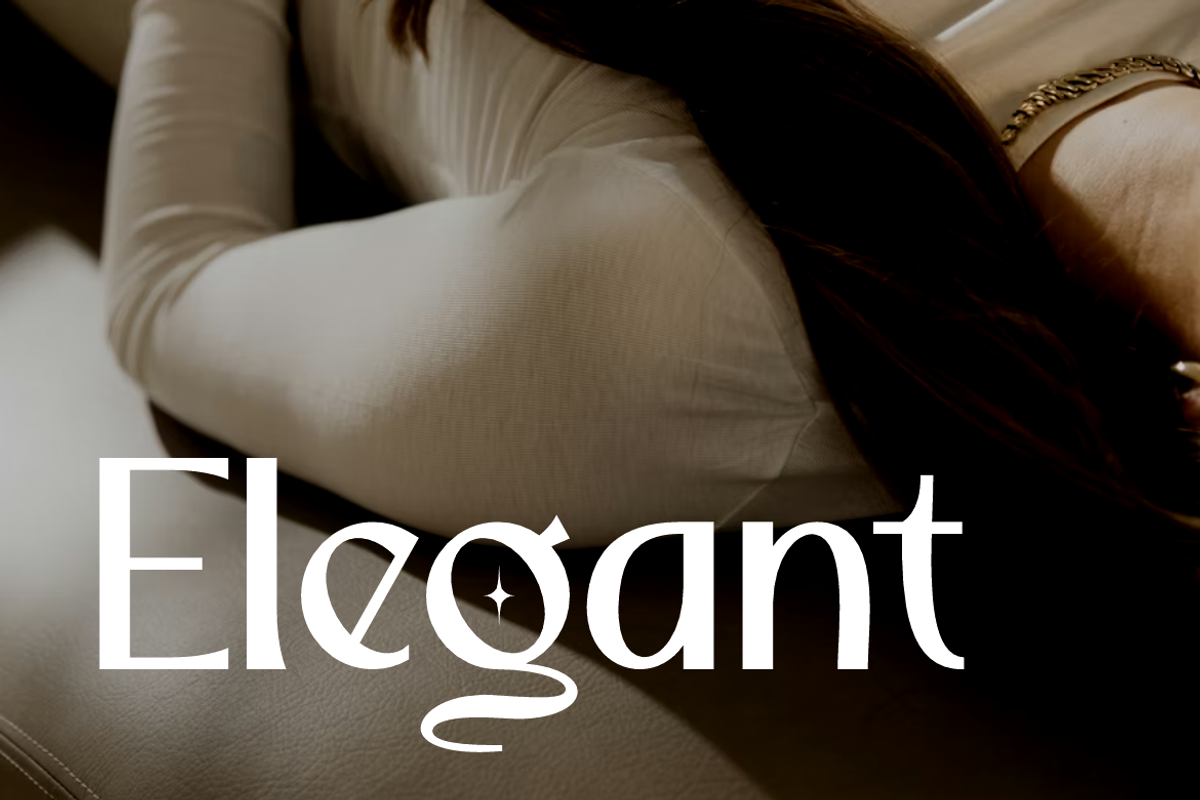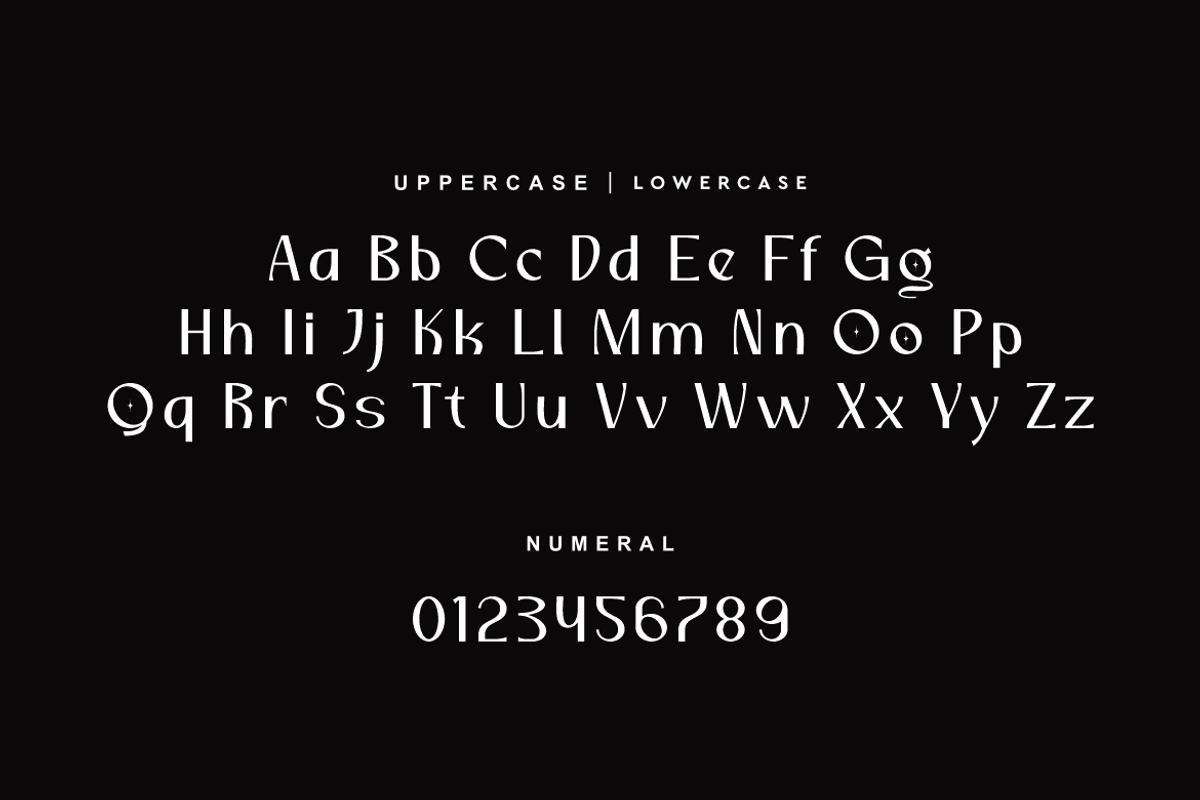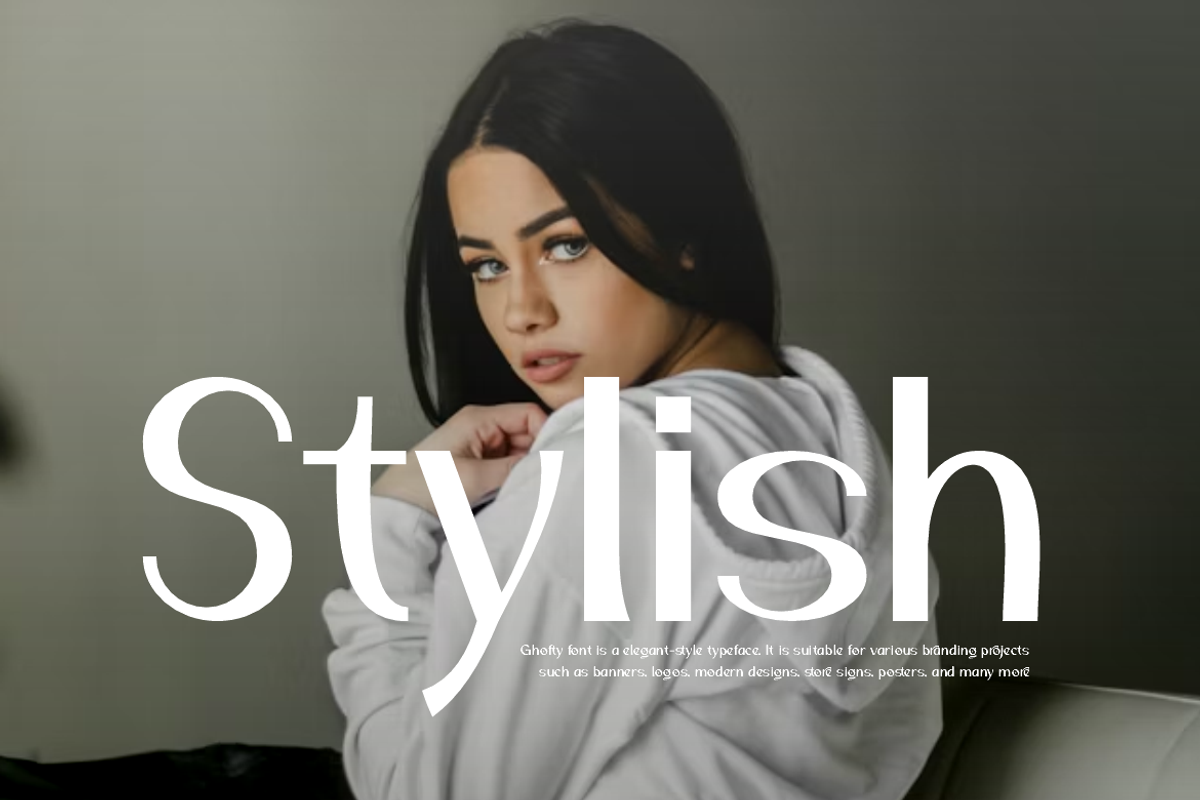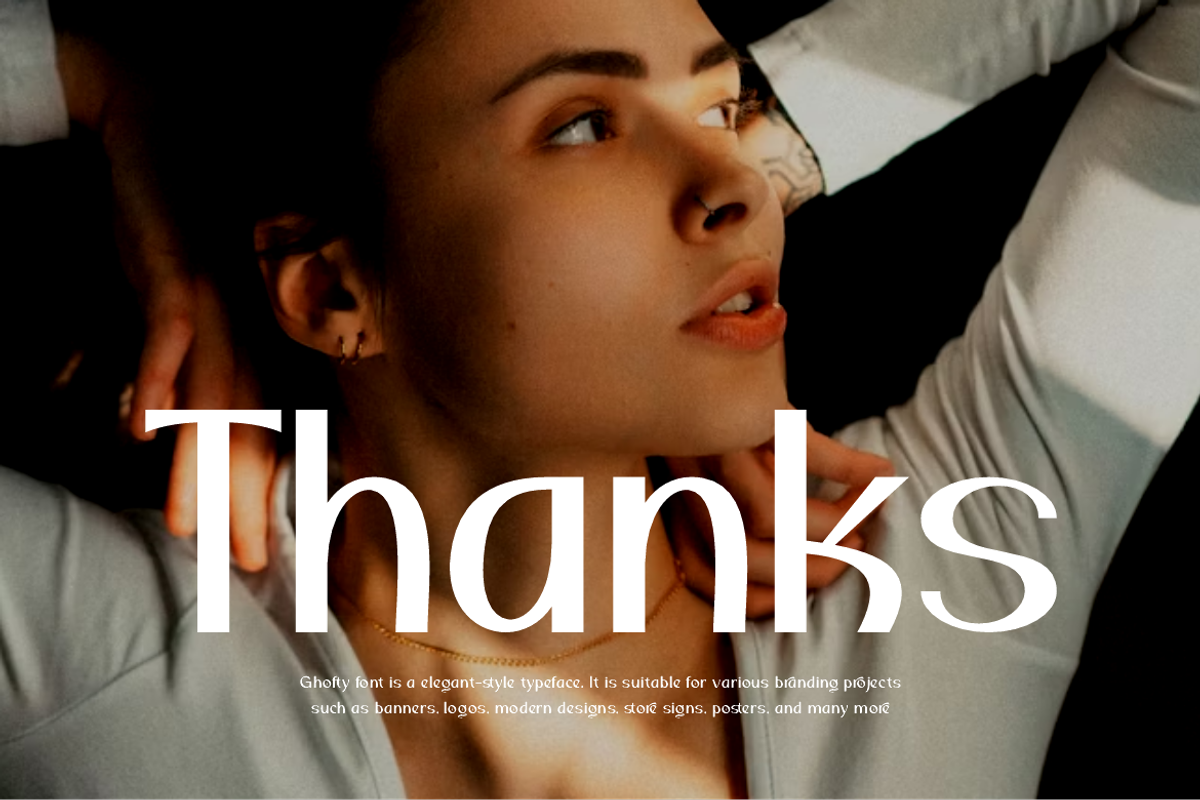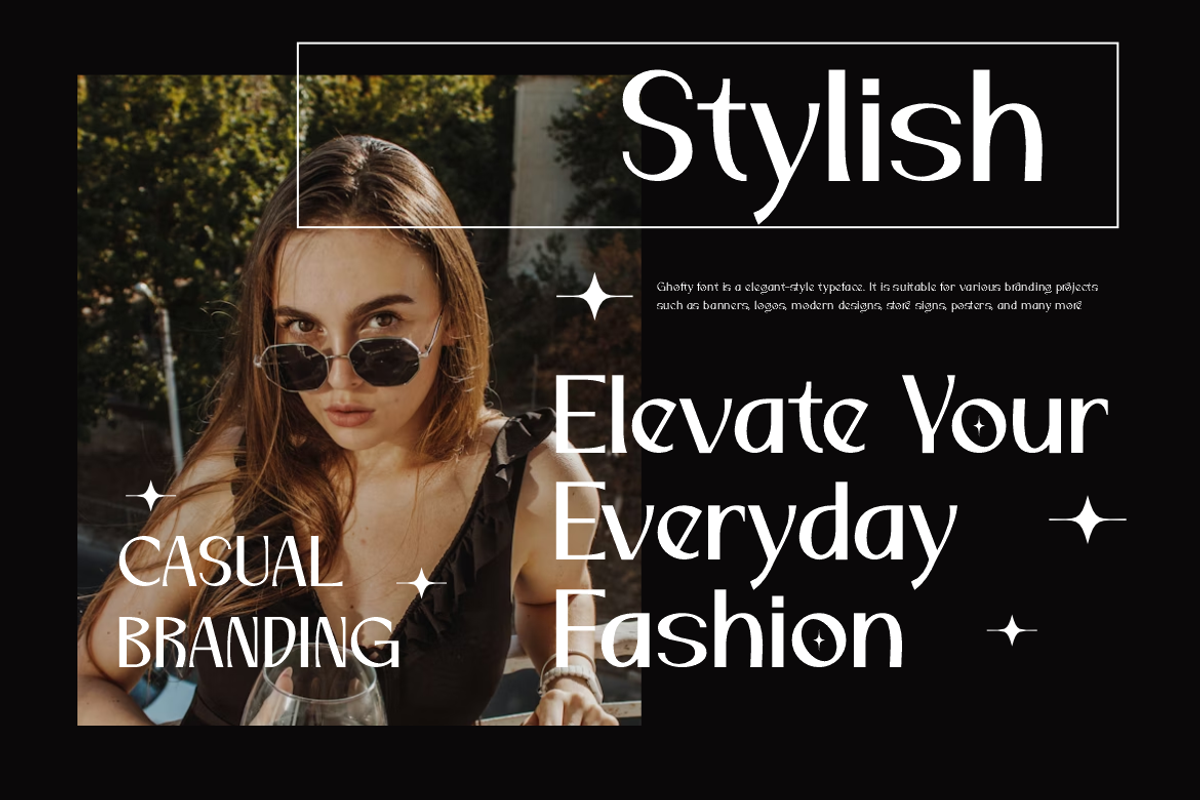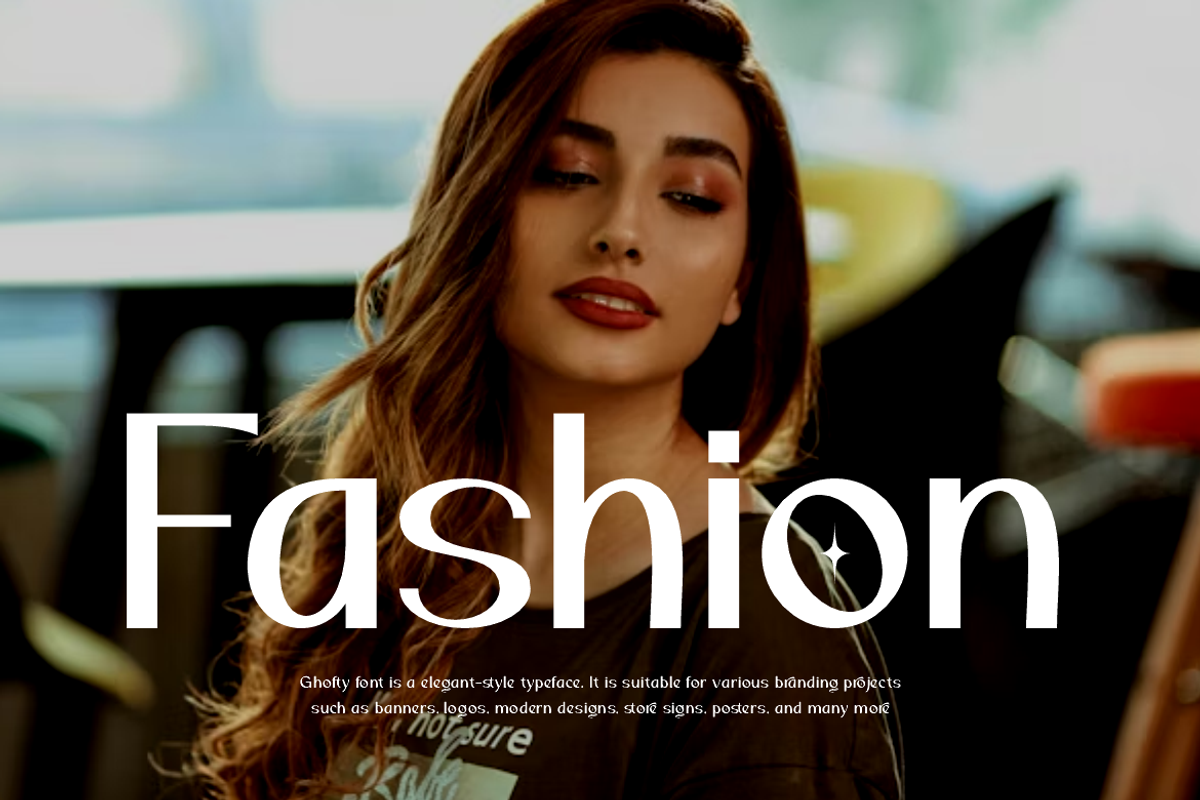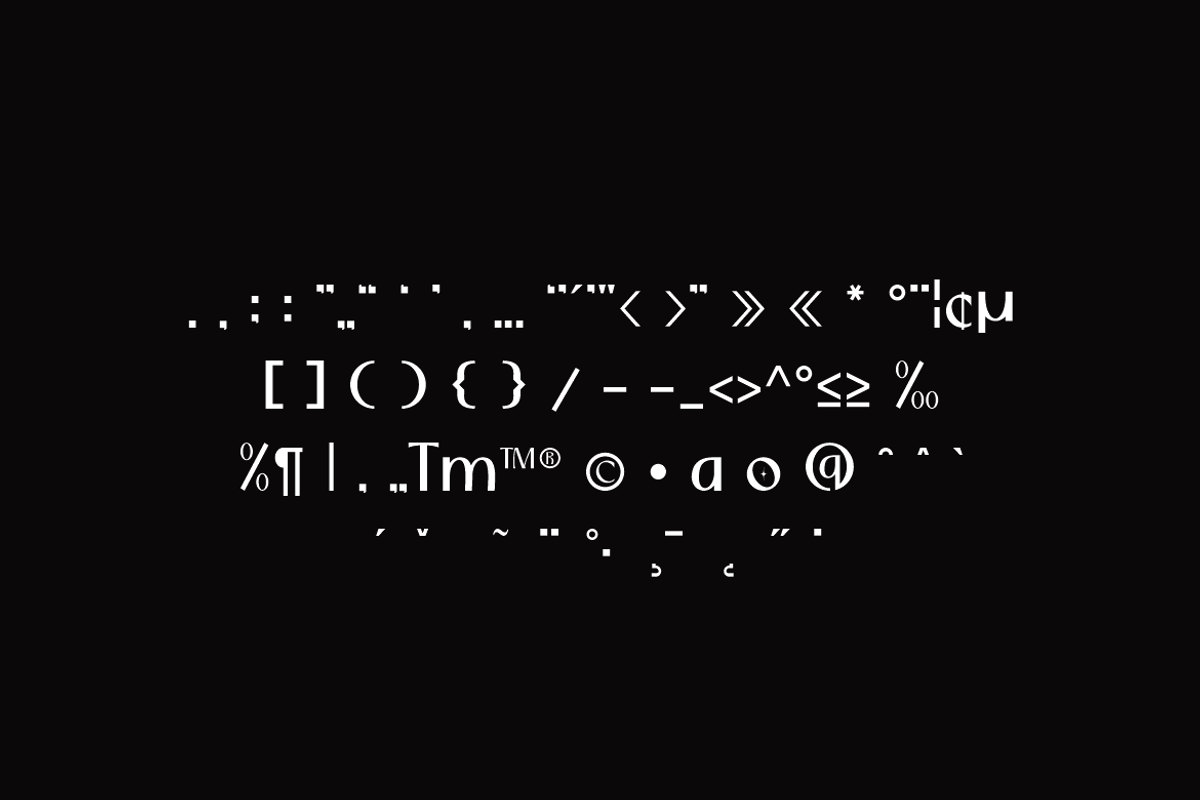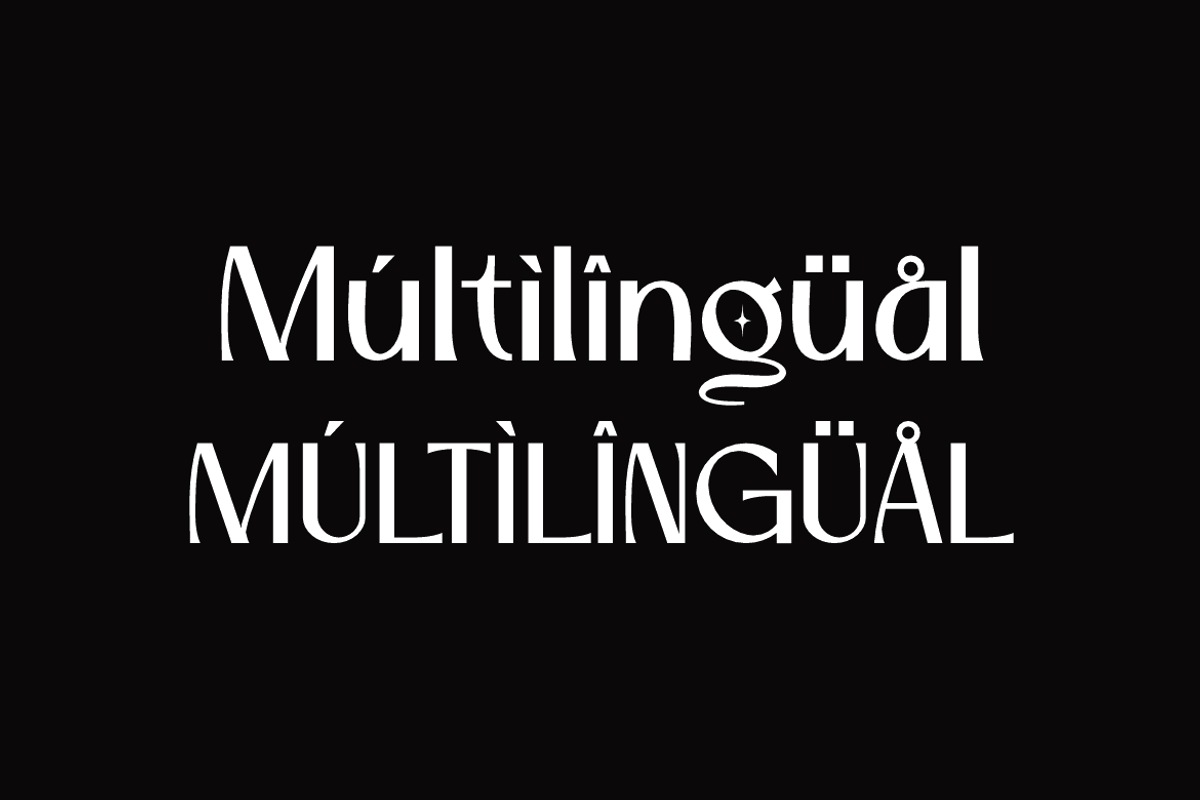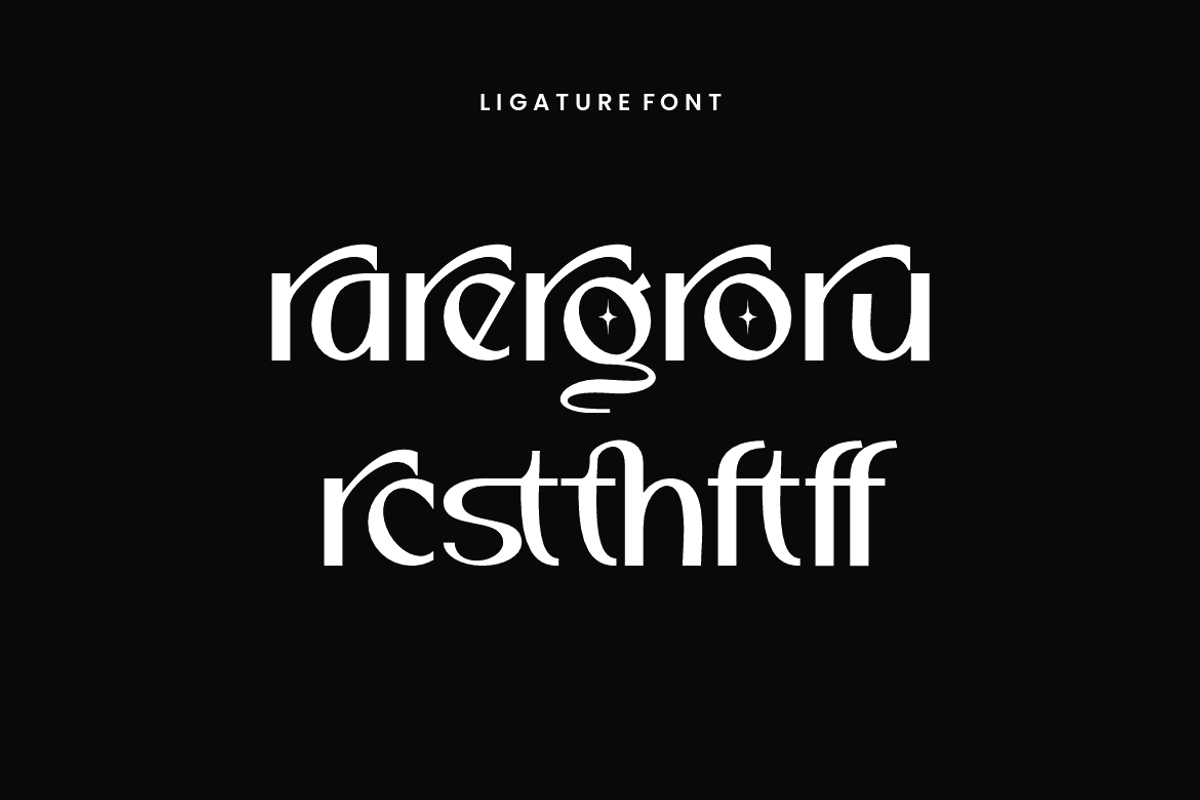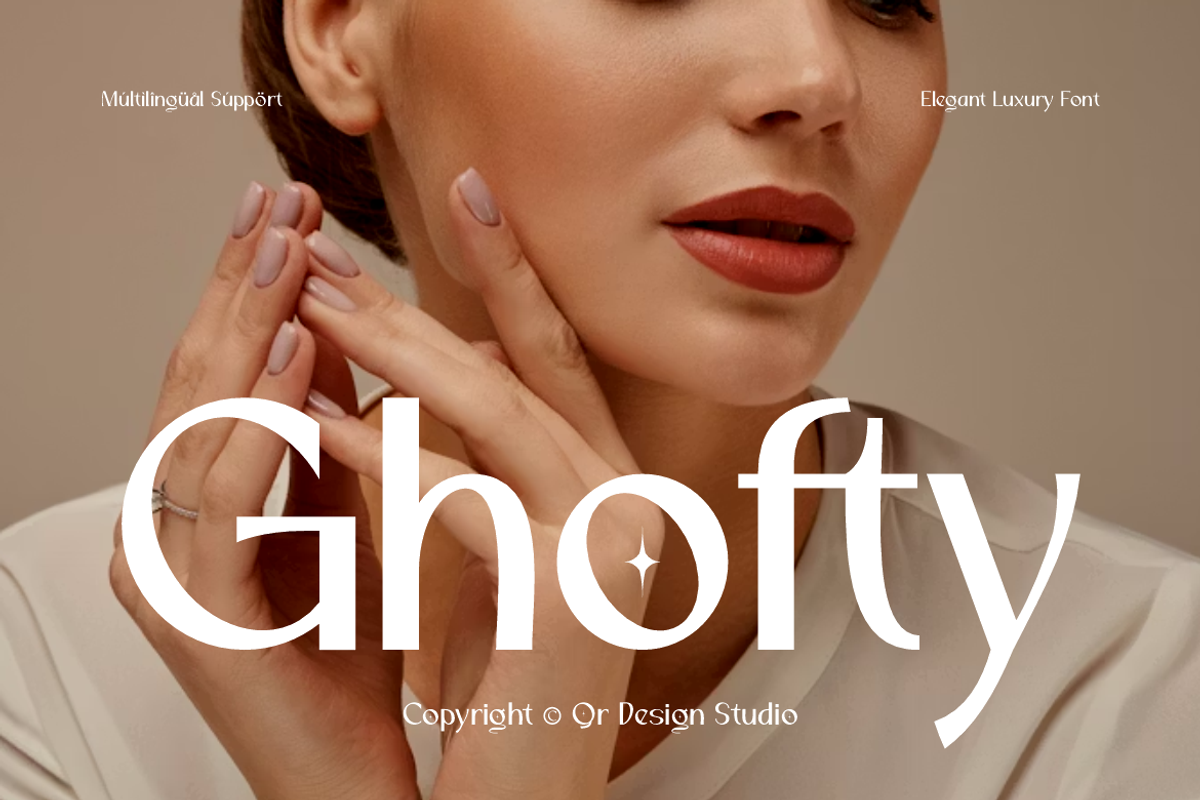
Ghofty - Modern Brand Font
Ghofty Font is a serif and authentic display typeface.
It’s perfect for various branding projects such as logos, modern designs,
and more. This font stands out beautifully in a wide range of contexts.